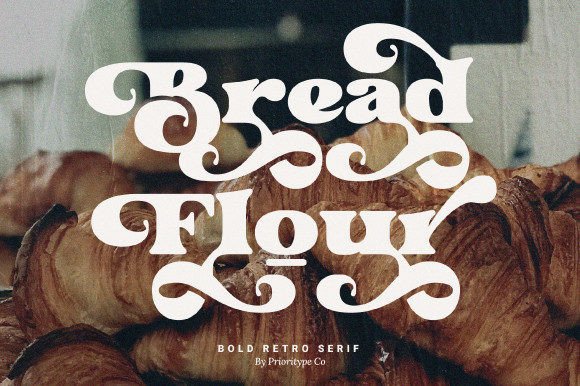
Introducing Bread Flour Font, an captivating serif font with a lingering retro feel, crafted by the talented Prioritype. This font family embodies the nostalgia of vintage signs, beckoning you to embark on a creative journey with its striking and distinctive charms.
Embark on a Typographic Voyage to the Past:
With its classic serif structure and enchanting curves, Bread Flour Font is a gateway to the allure of bygone eras. Its characters exude a timeless quality, reminiscent of hand-painted signs that adorned shops, diners, and marquees of yesteryear. Immerse yourself in the charm of vintage aesthetics and create captivating designs that evoke a sense of heritage and authenticity.
Create a Unique Visual Impact:
Bread Flour's diverse character alternatives empower you to craft designs that stand out and mesmerize. Experiment with swash capitals, stylish ligatures, and eye-catching stylistic sets to add an extra layer of visual intrigue to your projects. Unleash your creativity and let your designs blossom with a touch of individuality and artistic flair.
A Font for All Creative Endeavors:
Bread Flour Font's versatility extends far beyond vintage designs. Its bold and confident strokes make it an ideal choice for headlines that demand attention. Create branding that exudes authority and memorability, or design logos that leave a lasting impression. Its character and charm shine through in merchandise, packaging, and other creative endeavors, adding a touch of sophistication and visual appeal.
Grab the Spotlight with Headlines That Captivate:
Bread Flour Font's commanding presence transforms ordinary headlines into captivating centerpieces. Its robust serifs and generous proportions ensure readability, even at smaller sizes, making it perfect for grabbing attention in print and digital media. Whether you're crafting website headers, magazine titles, or social media graphics, Bread Flour Font ensures your message takes center stage.
A Font That Speaks to the Heart:
Bread Flour Font has a way of connecting with audiences on an emotional level. Its vintage charm evokes feelings of nostalgia and warmth, while its contemporary twist adds a touch of modernity. Use Bread Flour Font to create designs that resonate with your audience, creating a lasting connection that transcends words. Engage their senses and stir their emotions with every visual masterpiece you create.